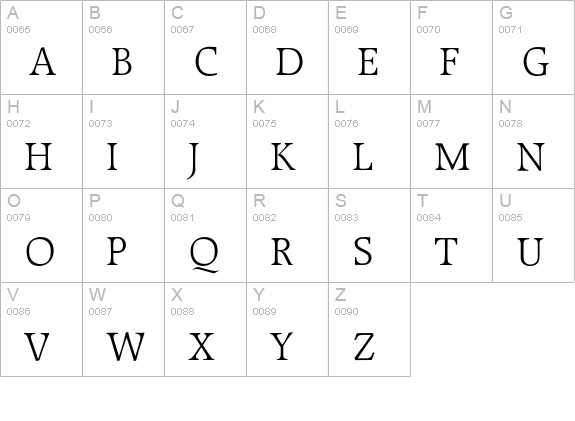
RaleighEF-Light is a refined, elegant variant in the RaleighEF typeface family \xE2\x80\x94 well suited to elegant body text, refined sub-headings, and luxury branding.
RaleighEF-Light font is a sleek and elegant typeface that exudes sophistication and refinement. Its clean lines and delicate curves make it perfect for adding a touch of class to any project. Whether you're designing a logo, creating a branding package, or crafting a stylish invitation, RaleighEF-Light is the ideal choice to make a lasting impression. This font's versatility is one of its standout features. It works seamlessly in both print and digital mediums, ensuring that your message comes across with clarity and impact. The thin strokes and generous spacing give RaleighEF-Light an airy and modern feel, while still maintaining a timeless appeal. What sets RaleighEF-Light apart is that it is freely available for download at FontsMarket.com. This means that you can access this high-quality font without any cost, making it a valuable asset for both personal and commercial use. Whether you're a professional designer or a hobbyist, having access to a top-notch font like RaleighEF-Light can elevate your work to new heights. When it comes to readability, RaleighEF-Light excels. The carefully designed letterforms ensure that each character is legible, even at small sizes or low resolutions. This font's versatility extends to its language support, making it suitable for projects in various languages. With RaleighEF-Light, you can effortlessly create elegant typography that stands out from the crowd. Its timeless design and free availability make it a must-have for any designer's toolkit. So why wait? Download RaleighEF-Light at FontsMarket.com today and unlock a world of creative possibilities.